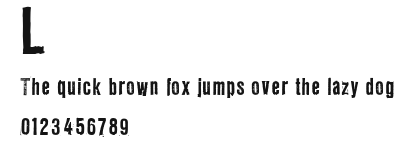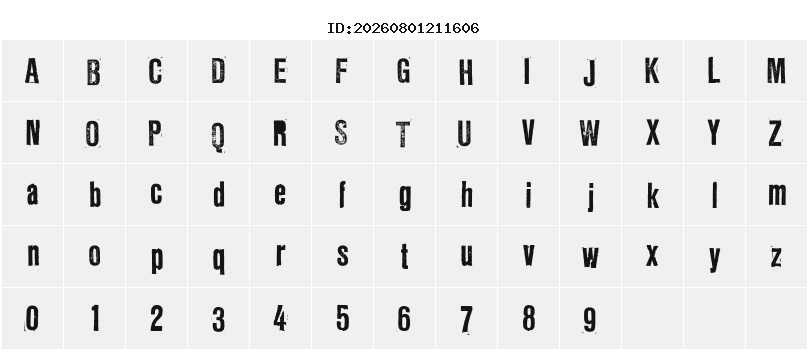
L Preview
• Font Name: L
• Font ID: Altsys Fontographer 3.5 L Regular
• Full Font Name: L Regular
• Version: Altsys Fontographer 3.5 21.05.1997
• PostScript Name: LLRubberGrotesque
About L.ttf
L.ttf is a modern, elegant sans-serif font designed for ultimate readability and visual harmony. Perfect for branding, headlines, web design, and print materials.